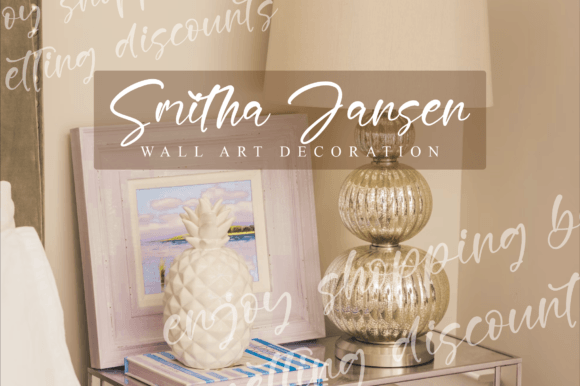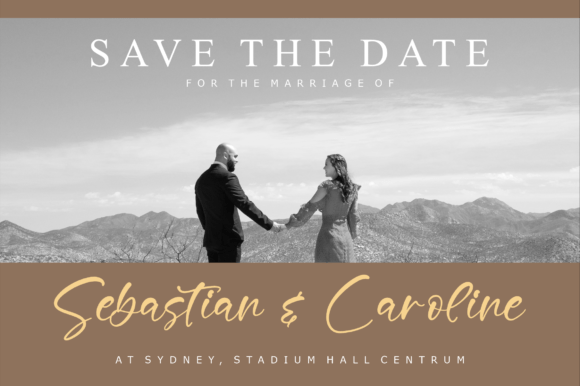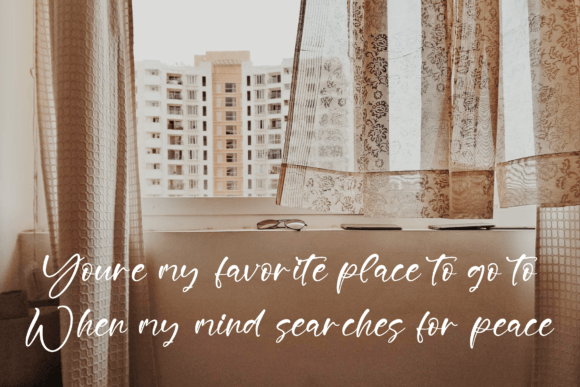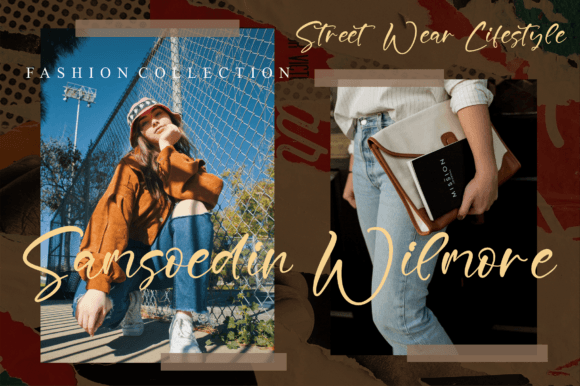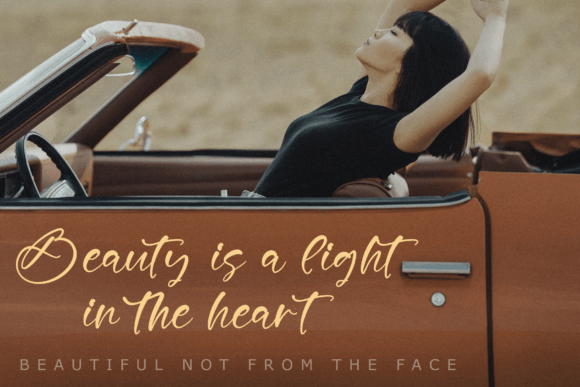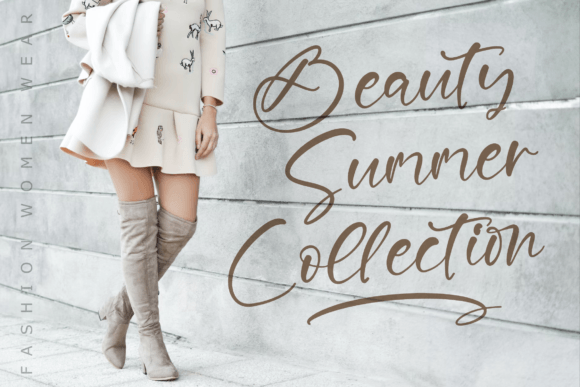
Brompthon Choconuts Font: Elevate Your Designs with a Dazzling Script Font
Are you a designer or crafter looking for a font that can add a touch of elegance and sophistication to your creations? Look no further than the Brompthon Choconuts font. This stunning script font is meticulously crafted with intricate details that will make your designs stand out from the crowd. In this article, we’ll explore the features and benefits of the Brompthon Choconuts font and how it can become a valuable asset to your font library.
A Beautifully Crafted Script Font
Brompthon Choconuts is a dazzling script font that boasts a high level of detail and craftsmanship. Its elegant and flowing lines make it perfect for a wide range of design projects, from wedding invitations and branding materials to social media graphics and digital art. The font’s unique and distinctive style will add a touch of personality to your designs, setting them apart from the ordinary.
One of the standout features of the Brompthon Choconuts font is its PUA (Private Use Area) encoding. This means that you can access all glyphs and swashes with ease, giving you complete creative control over your designs. With PUA encoding, you can effortlessly navigate the font’s extensive character set, including alternates, ligatures, and ornaments, to create stunning and intricate designs.
The versatility of the Brompthon Choconuts font is one of its most significant advantages. Whether you’re working on a romantic wedding invitation, a luxury brand logo, or a playful social media graphic, this font will adapt seamlessly to your design needs. Its elegant and sophisticated style makes it suitable for a wide range of topics and themes, ensuring that your designs always look polished and professional.
Why Brompthon Choconuts Font is a Great Asset to Your Font Library
Adding the Brompthon Choconuts font to your font library can have a significant impact on your design work. Here are just a few reasons why:
- Elegance and Sophistication: The font’s elegant and sophisticated style will elevate your designs and give them a professional finish.
- Versatility: The font’s adaptability makes it suitable for a wide range of design projects, from print to digital.
- Easy to Use: The PUA encoding makes it easy to access all glyphs and swashes, streamlining your design process.
- Unique and Distinctive: The font’s unique style will add a touch of personality to your designs, setting them apart from the ordinary.
Tips for Using Brompthon Choconuts Font
To get the most out of the Brompthon Choconuts font, here are a few tips:
- Experiment with Different Sizes: The font looks great in a variety of sizes, from large headings to smaller body text.
- Play with Swashes and Glyphs: Take advantage of the font’s extensive character set to add intricate details and flourishes to your designs.
- Pair with Other Fonts: Combine the Brompthon Choconuts font with other fonts to create striking and unique typography.
In conclusion, the Brompthon Choconuts font is a dazzling script font that can elevate your designs and add a touch of elegance and sophistication. Its PUA encoding makes it easy to use, and its versatility ensures that it will adapt seamlessly to a wide range of design projects. Whether you’re a designer or crafter, this font is a valuable asset to your font library, and we highly recommend adding it to your collection.